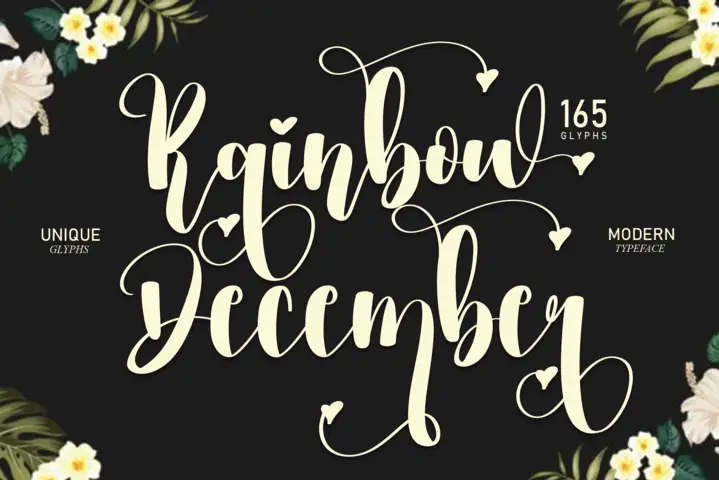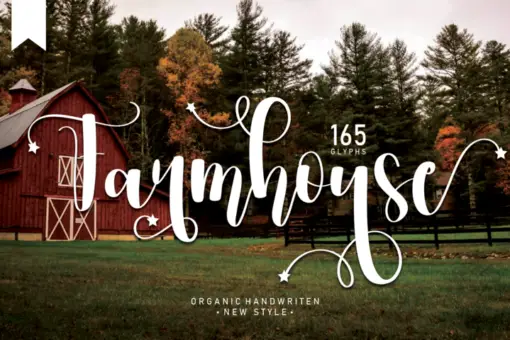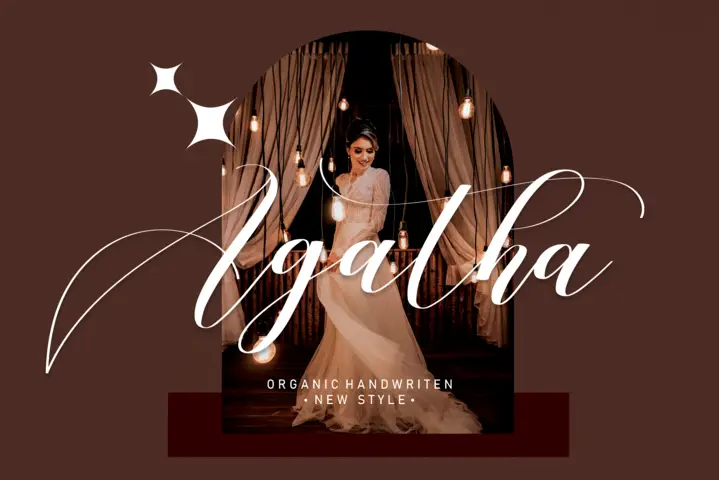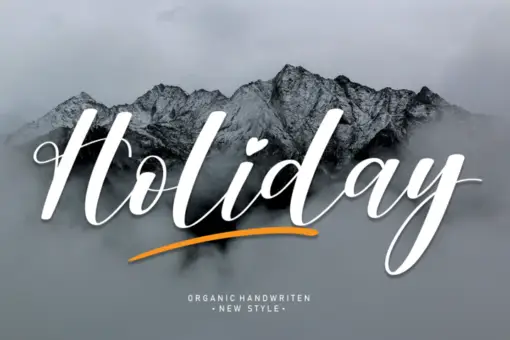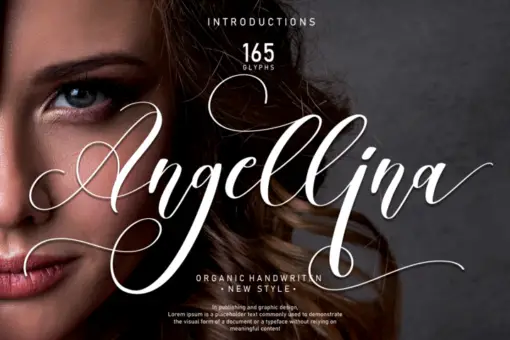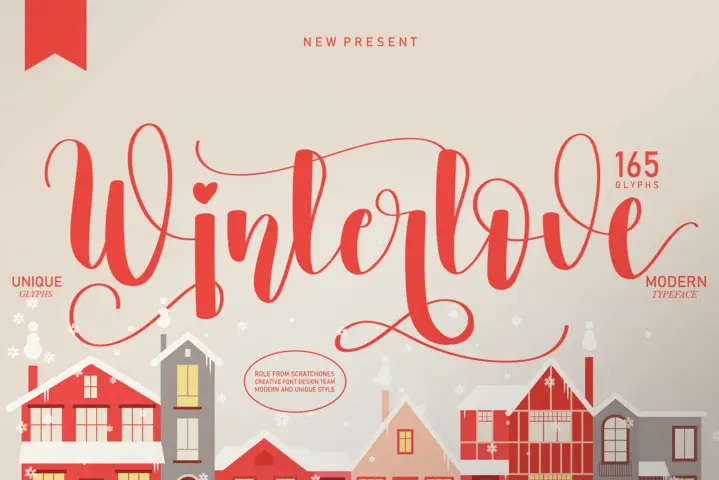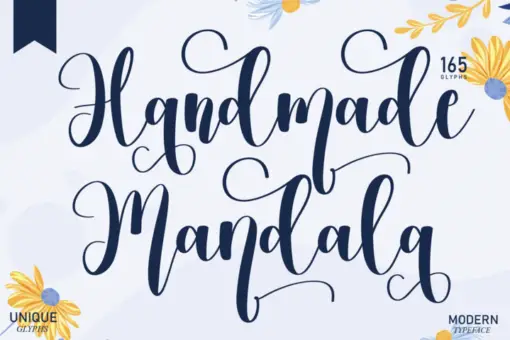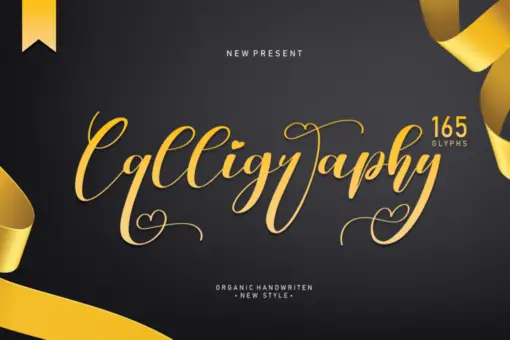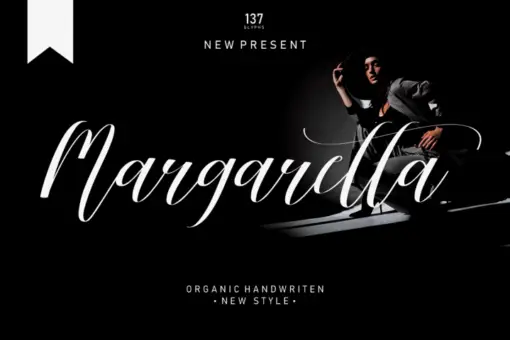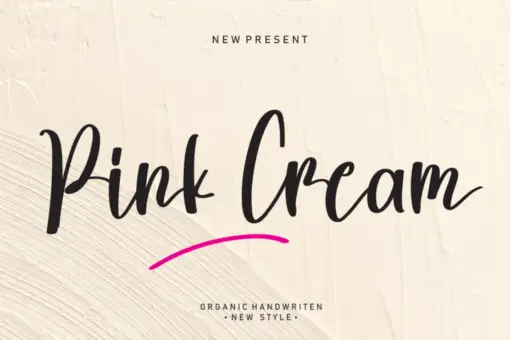
Introducing the Beautiful Font Bundles Collections, a curated selection of high-quality fonts designed to elevate your creative projects. This collection features a variety of font styles, including elegant scripts, modern sans-serifs, and classic serifs, ensuring you have the perfect typeface for any occasion.
- Multiple font weights and styles
- Versatile designs suitable for branding, logos, web, print, and UI
Each font in this collection is crafted with precision, offering a range of weights from light to bold. The diverse styles allow for creative flexibility, whether you’re designing a sophisticated logo or an eye-catching poster.